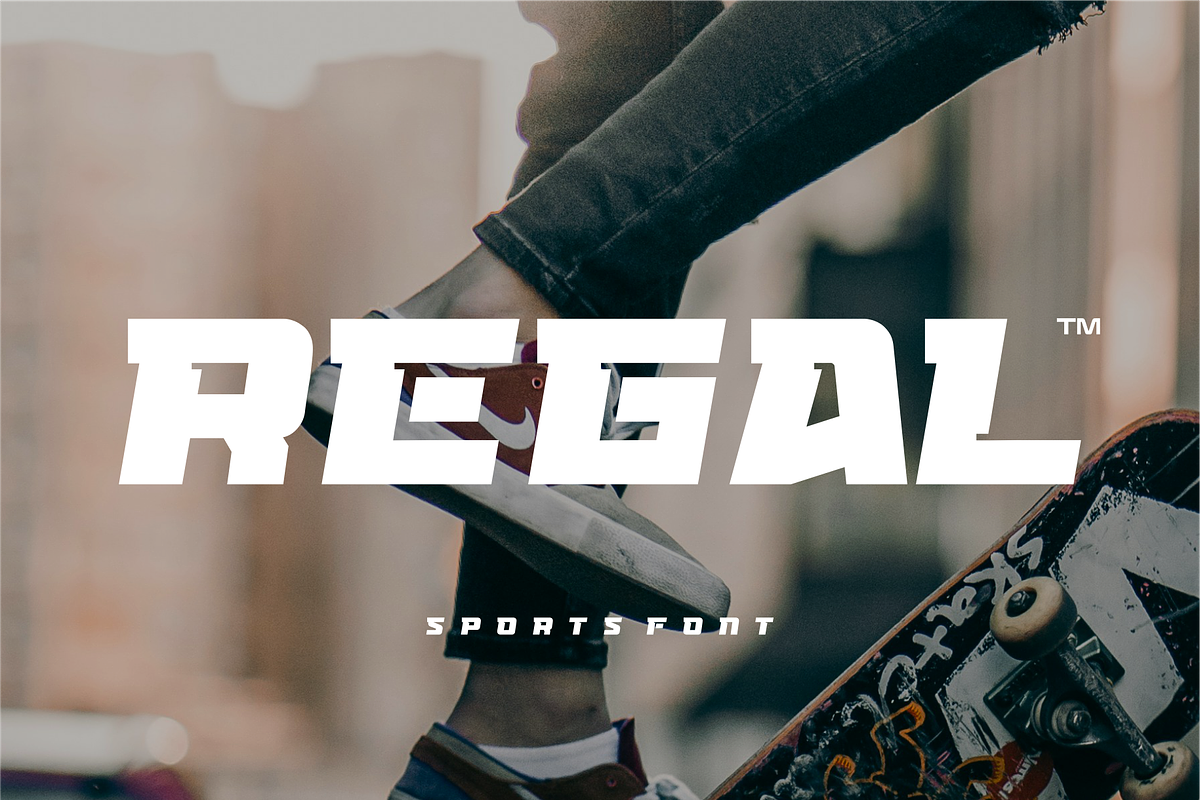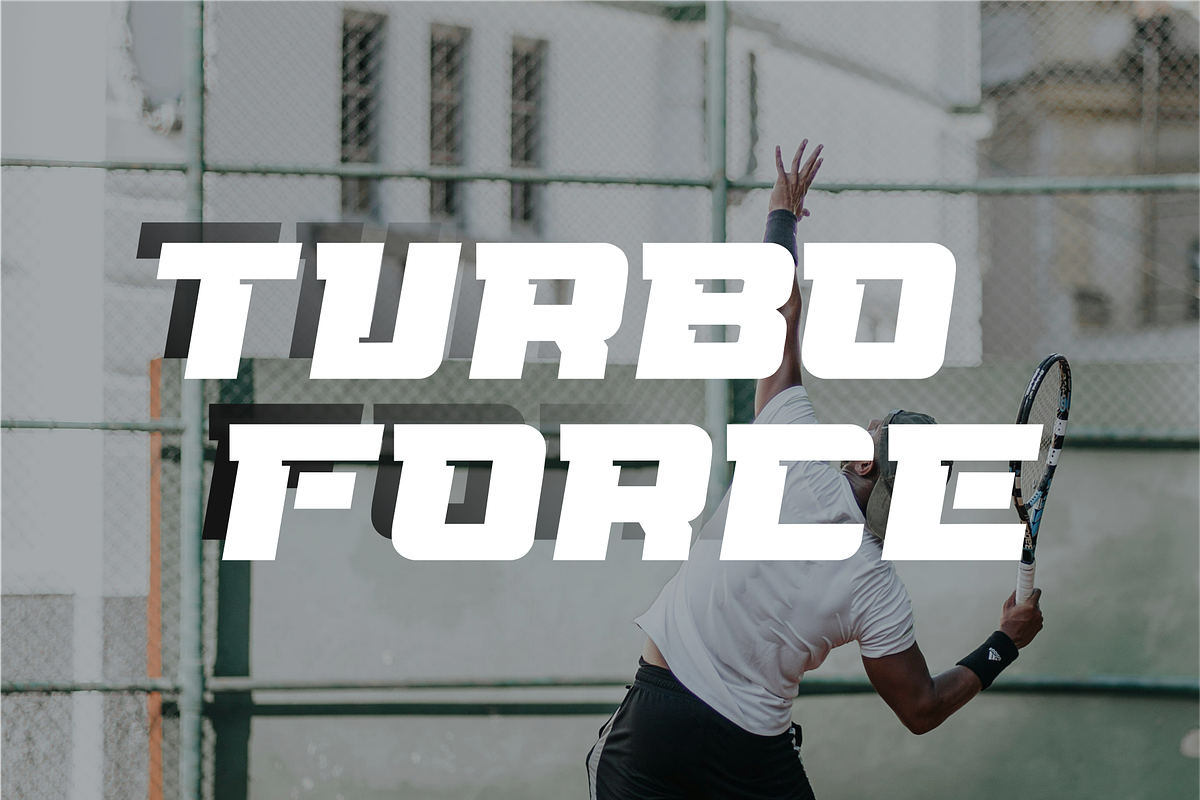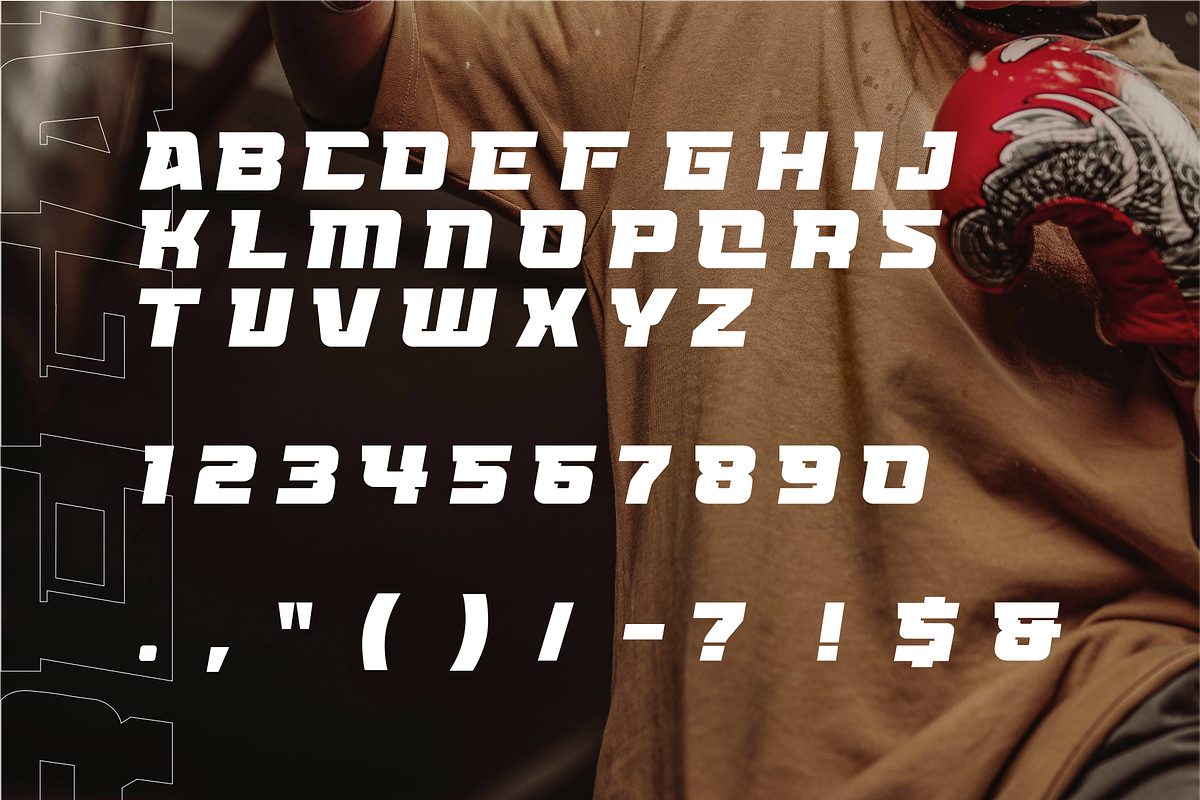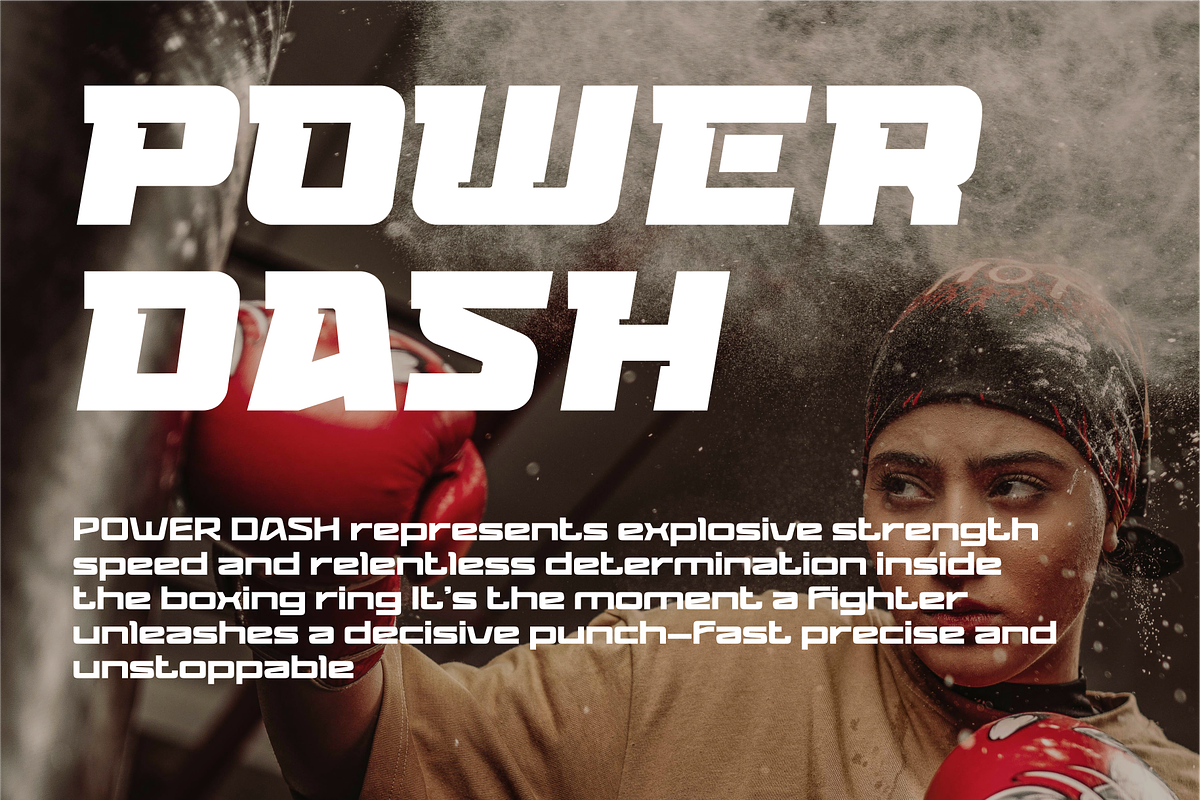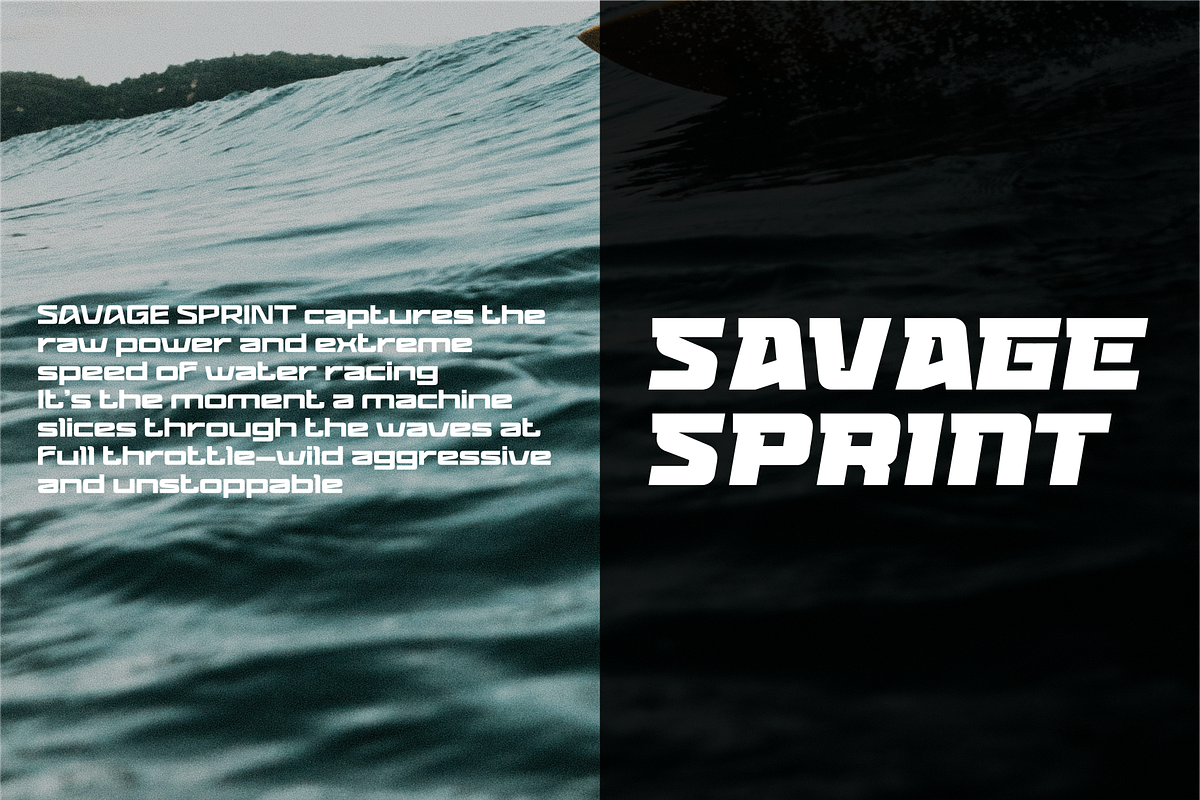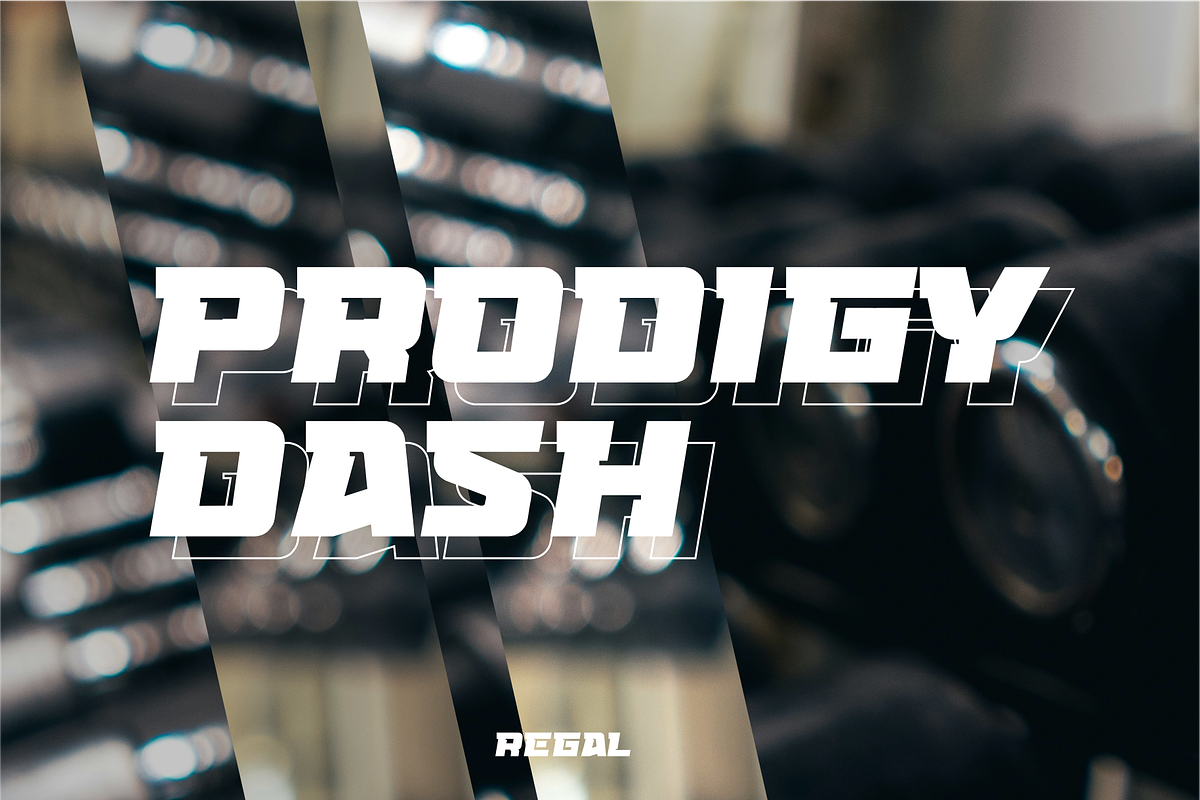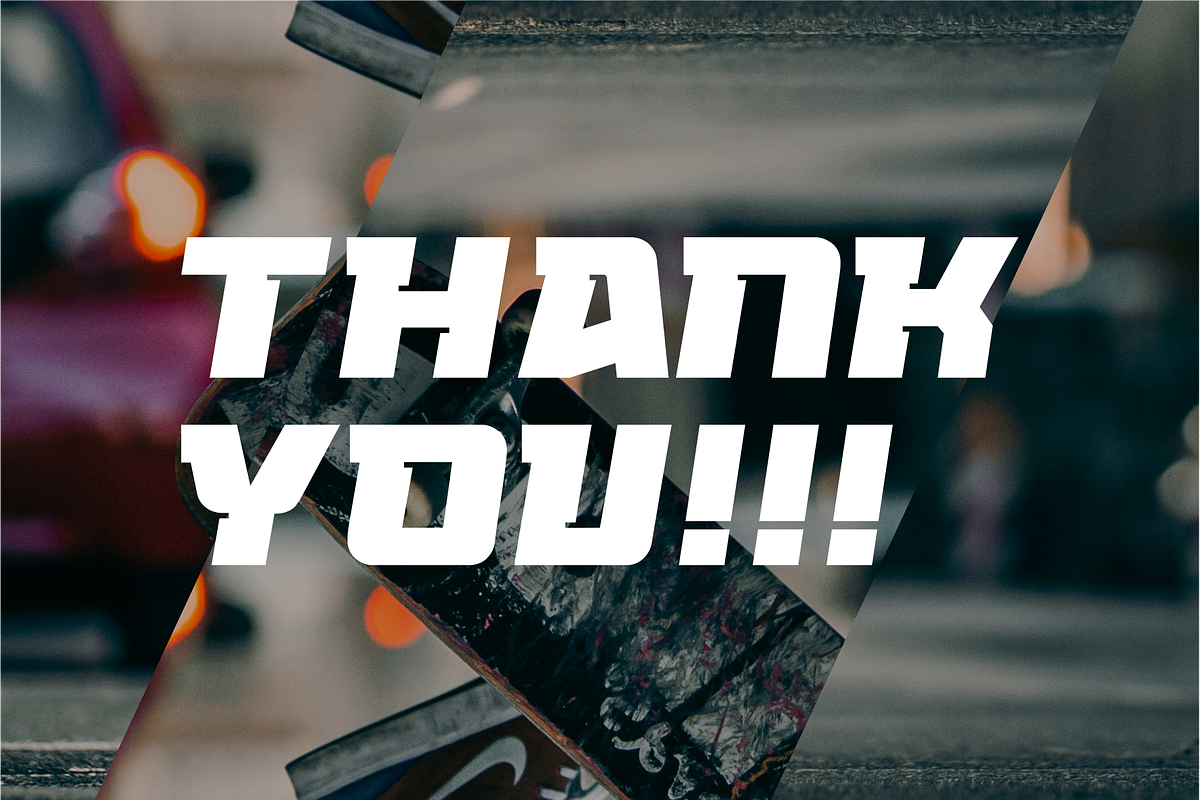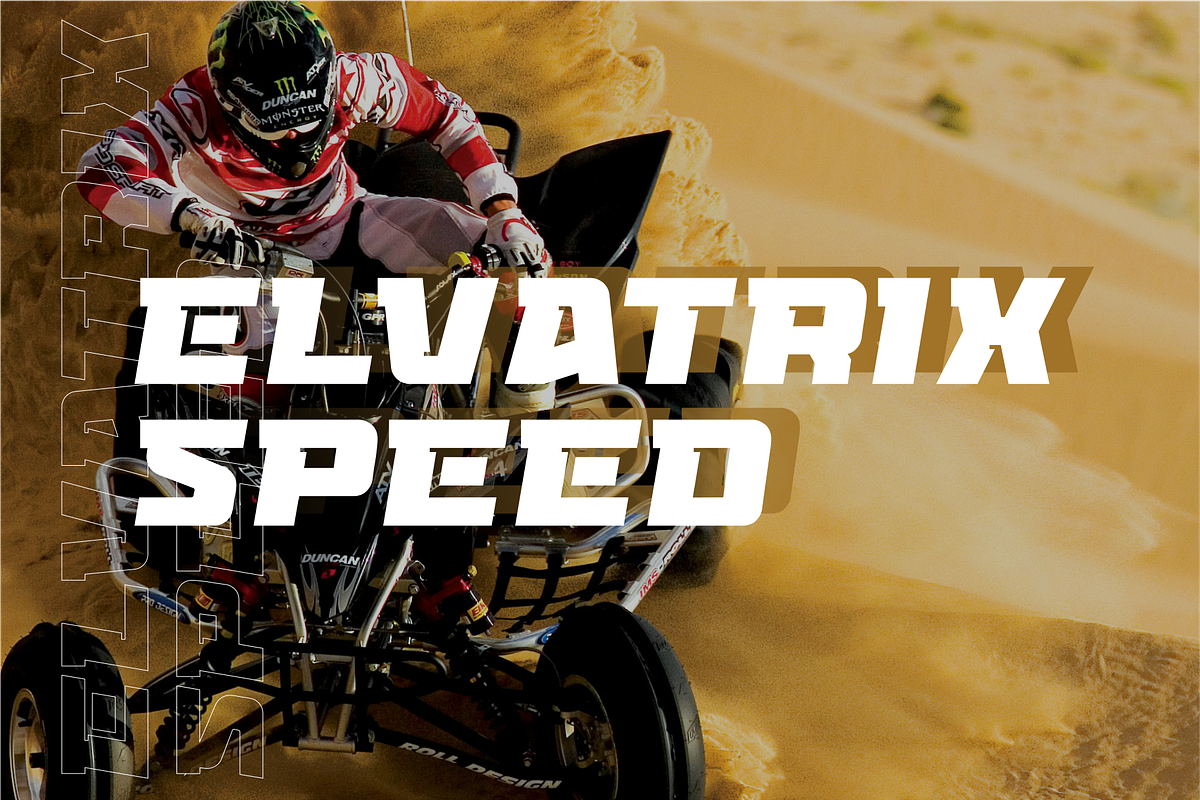
Regal - Bold Sport Display Font
REGAL SPORT is a bold sport display font built for strength, speed, and impact. Featuring sharp edges, solid proportions, and a dynamic athletic style, it is perfect for sports branding, team identity, and fitness-related designs. Its strong character shapes create a powerful visual presence that instantly captures attention.
Ideal for gym branding, football and basketball posters, racing graphics, esports visuals, logos, and digital promotions. REGAL SPORT delivers excellent readability while maintaining a modern, energetic, and professional sport aesthetic across various media platforms.
Designed to support bold and competitive visuals, REGAL SPORT ensures consistency and clarity in every application. Whether you are creating branding materials, promotional content, or digital graphics, this font provides the strength and versatility needed to elevate your design projects.